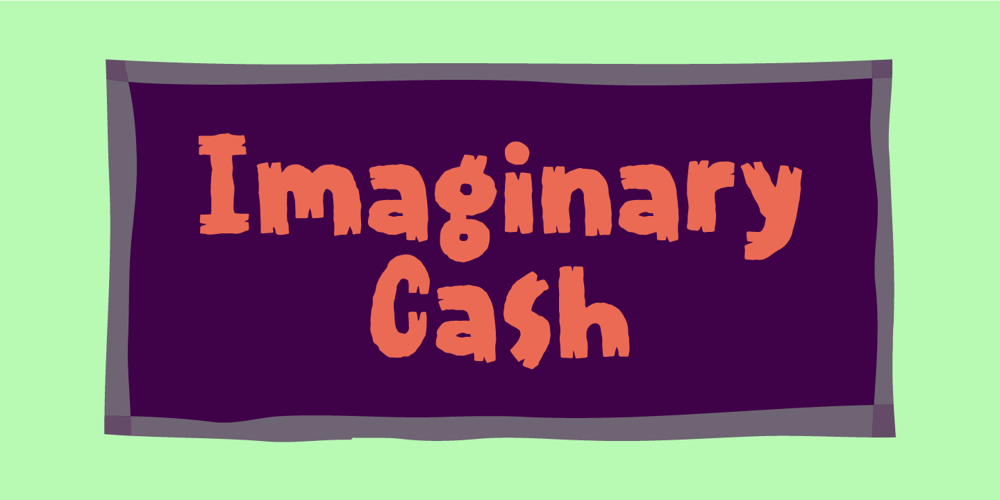
Imaginary Cash
Imaginary Cash Font Family was designed by Jakob Fischer and published by PizzaDude.dk. Imaginary Cash contains 2 styles and family package options. Here’s Imaginary Cash – it features a full set of crusty upper- and lowercase letters, as well as ligatures for the most common double-letters (bb, cc, dd, ee, ff, gg, hh, kk, ll, mm, nn, oo, pp, rr, ss, tt, ww, xx and zz) Included is also multilingual support